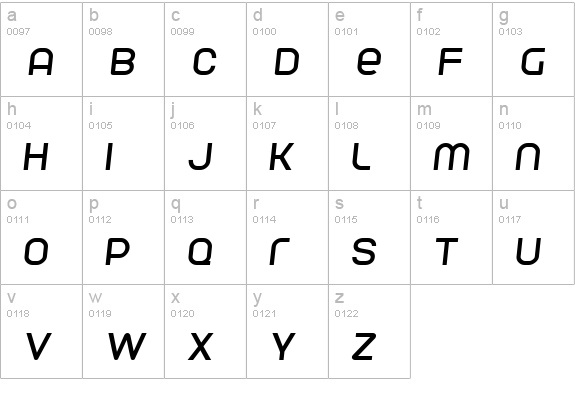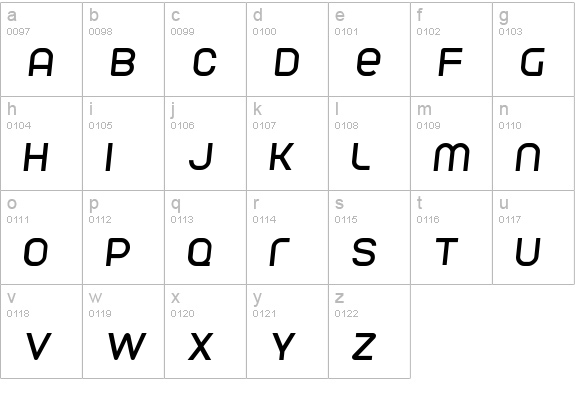
Parvoflavin Normal Skew Font Details
Parvoflavin Normal Skew is the standard, neutral variant in the Parvoflavin typeface family \xE2\x80\x94 well suited to general body text, paragraphs, and standard typographic work.
Introducing Parvoflavin Normal Skew font, a stunning typeface that combines elegance with a touch of playfulness. This font is perfect for adding a unique and eye-catching twist to your designs. With its distinctive skewed angles and clean lines, Parvoflavin Normal Skew font adds a sense of dynamism and modernity to any project. One of the best features of Parvoflavin Normal Skew font is that it is free! Yes, you read that right - this amazing font is freely available to download at FontsMarket.com. Whether you're a professional designer or a hobbyist looking to add a creative touch to your personal projects, you can now access this incredible font without any cost. The versatility of Parvoflavin Normal Skew font is truly remarkable. Its sleek and streamlined forms make it ideal for a wide range of design applications, from logos and branding to web design and print materials. Its unique skew adds a sense of movement and energy, making it perfect for designs that aim to captivate the viewer's attention. The characters of Parvoflavin Normal Skew font are meticulously crafted, ensuring legibility and readability across various sizes and mediums. Each letter is carefully designed to maintain a harmonious balance between elegance and modernity, creating a seamless flow that enhances the overall visual appeal. Parvoflavin Normal Skew font is a true gem for designers and creatives alike. Its ability to effortlessly elevate any design and its availability as a free download make it a must-have in your font collection. So why wait? Visit FontsMarket.com today and unleash your creativity with Parvoflavin Normal Skew font.